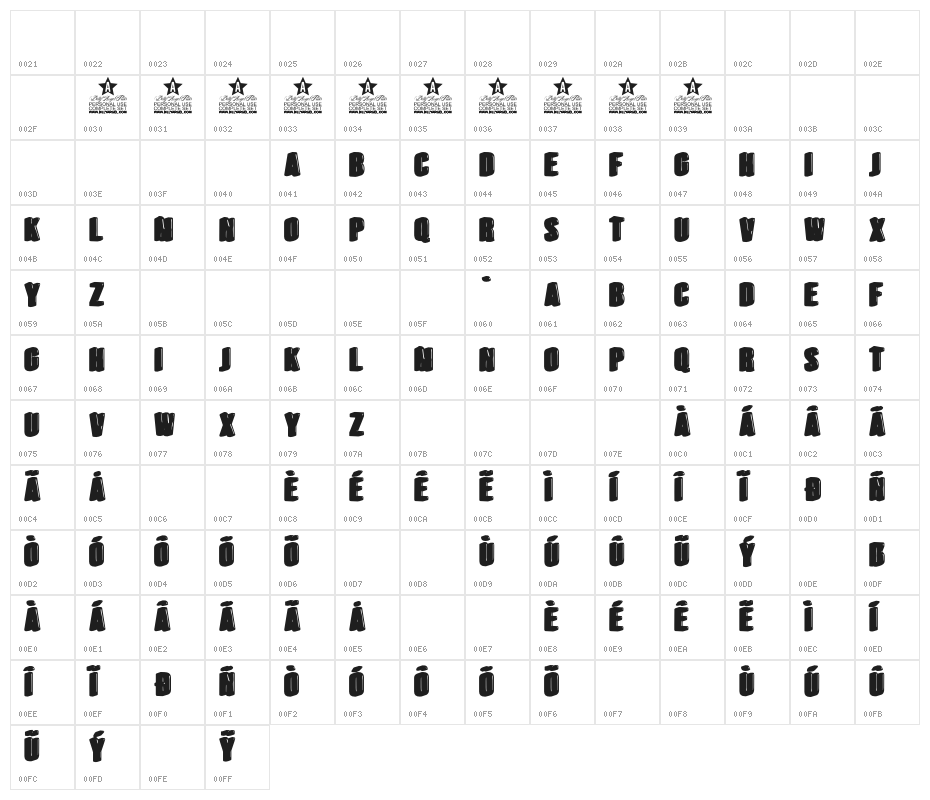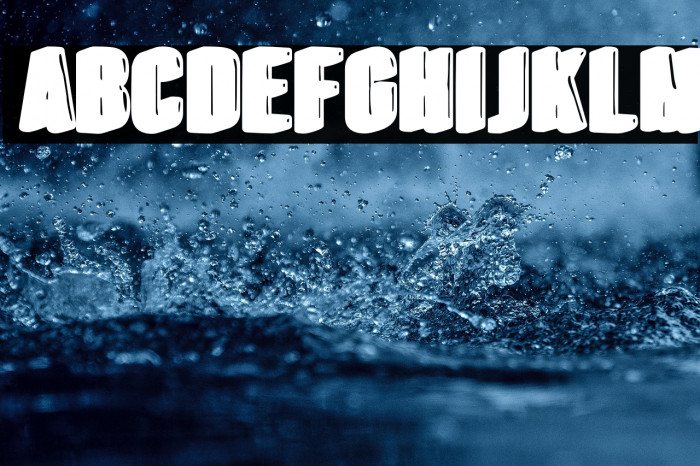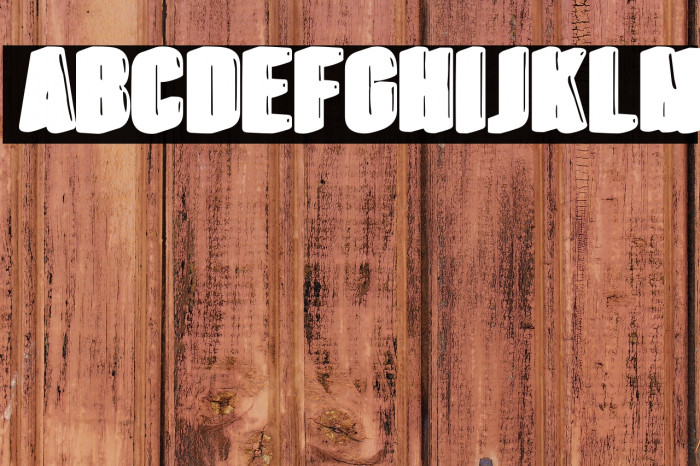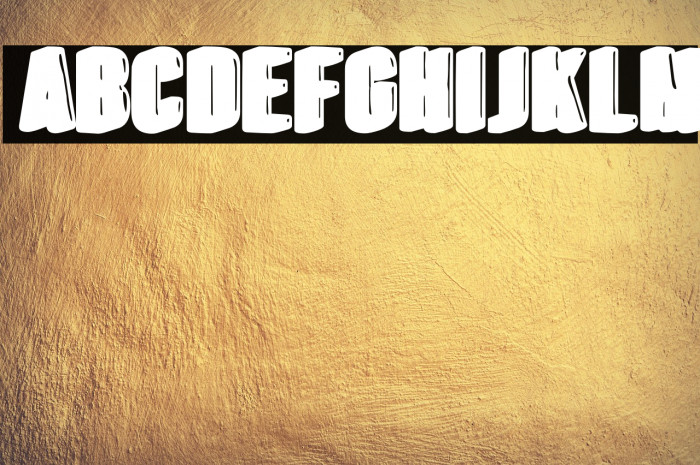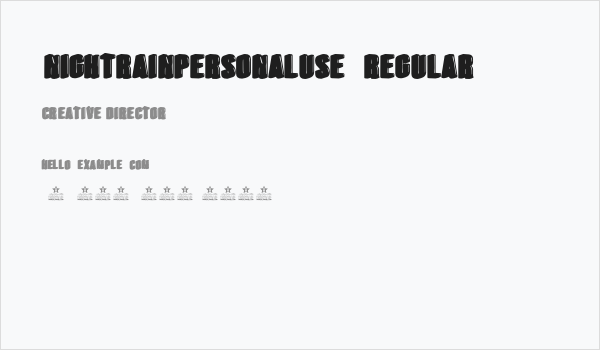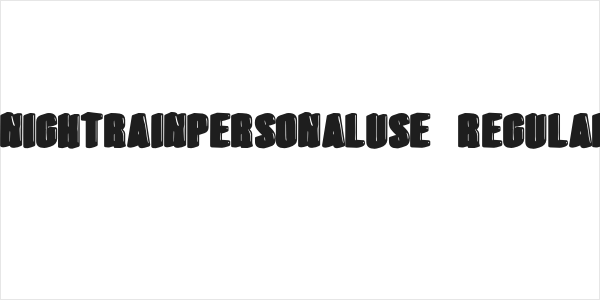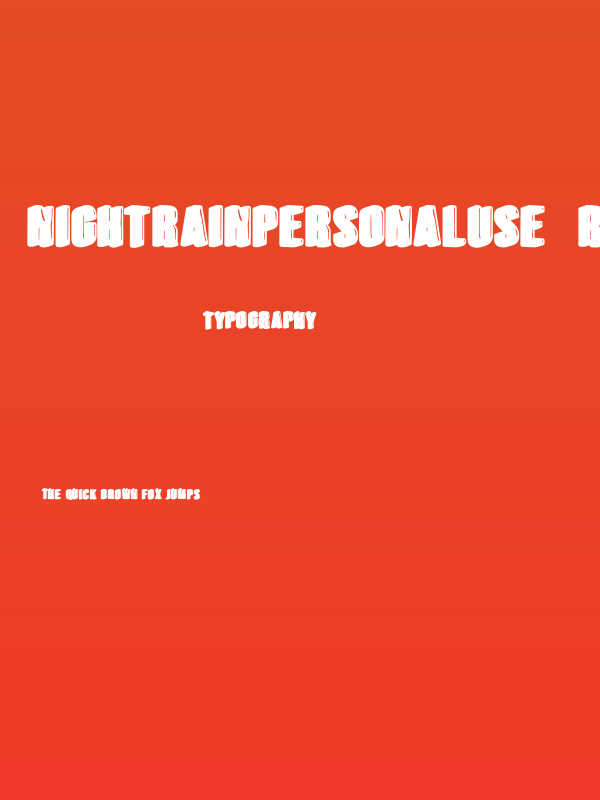
NIGHTRAINPERSONALUSE-Regular Font
NIGHTRAINPERSONALUSE-Regular Description
This font features a bold and impactful design with thick, heavy strokes that create a strong visual presence. The characters are uniformly wide, with a slight curvature that adds a touch of softness to the otherwise robust appearance. The style is reminiscent of vintage poster fonts, making it ideal for creating eye-catching headlines and titles. The uniformity in stroke width and the bold nature of the letters give it a commanding presence, suitable for projects that require a strong typographic statement.